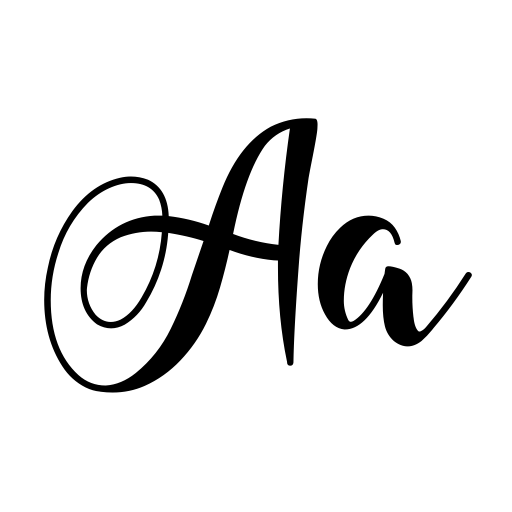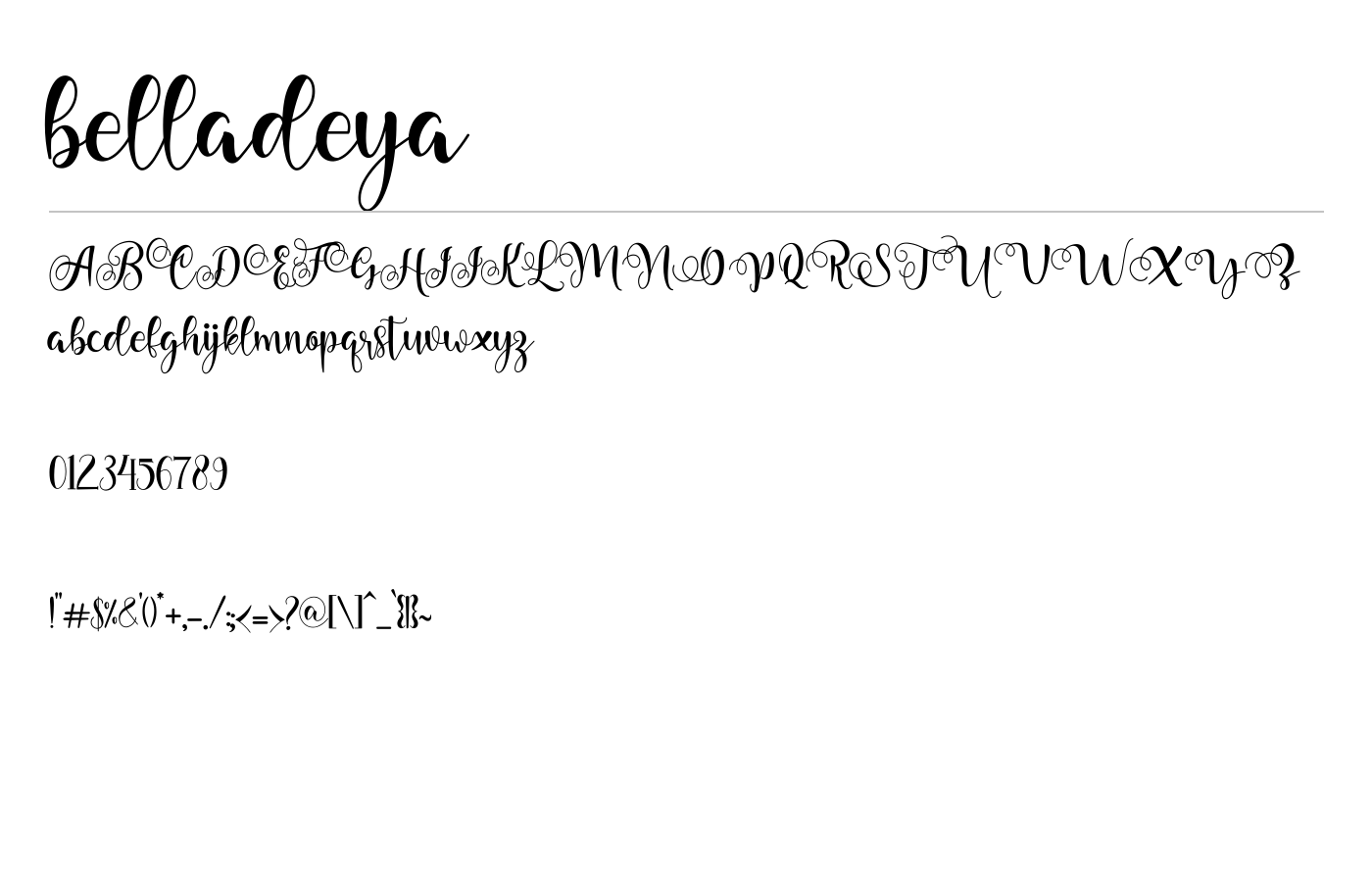
Belladeya is a graceful script font with elegant, flowing strokes and decorative swashes, especially noticeable in its uppercase letters. Its combination of smooth curves and fine details gives it a sophisticated and romantic personality, making it ideal for wedding invitations, luxury branding, and stylish logos. With its refined charm, Belladeya adds a touch of delicate beauty to headlines and packaging where a feminine and artistic feel is desired.
belladeya Font
About belladeya Font